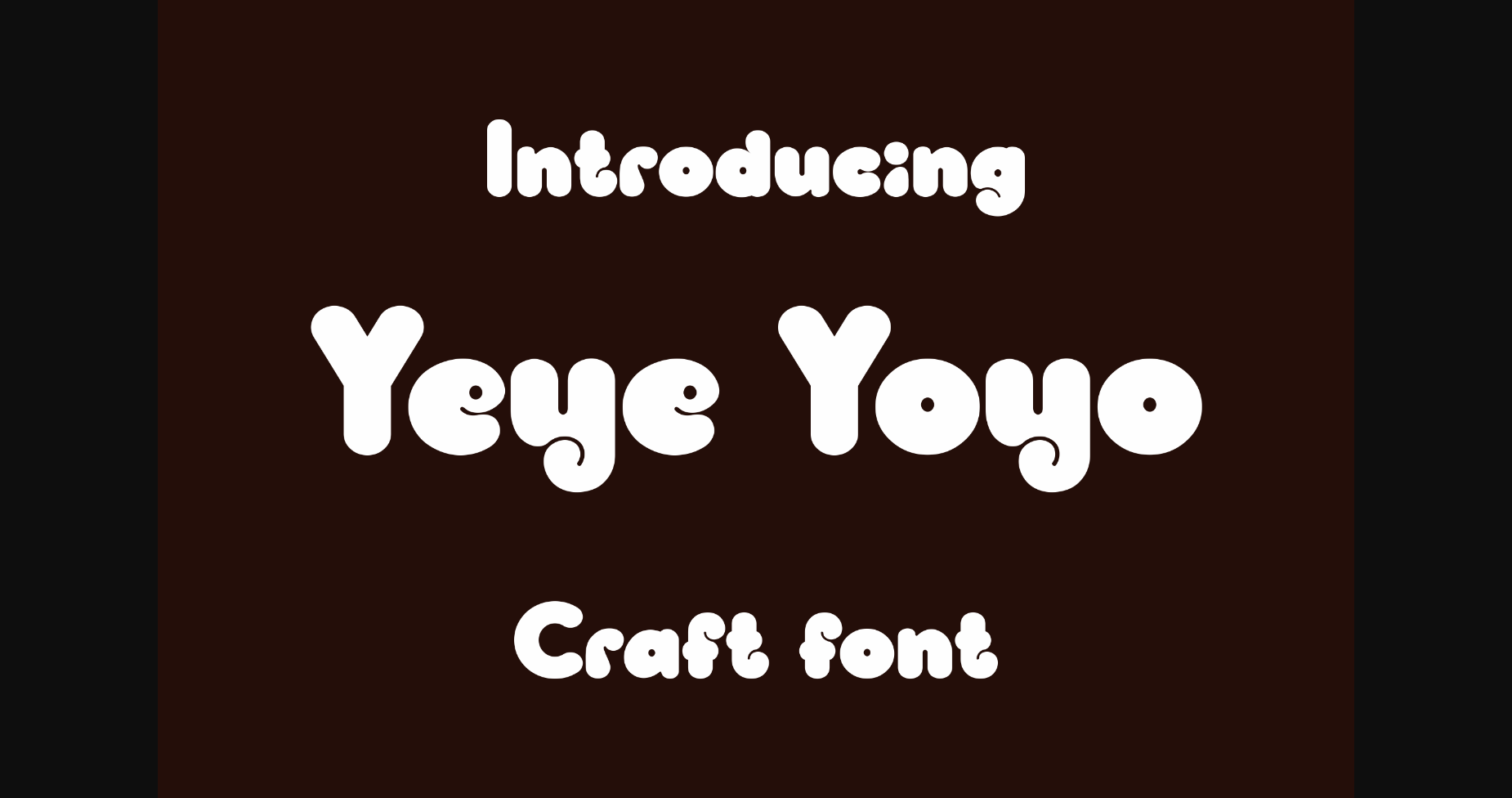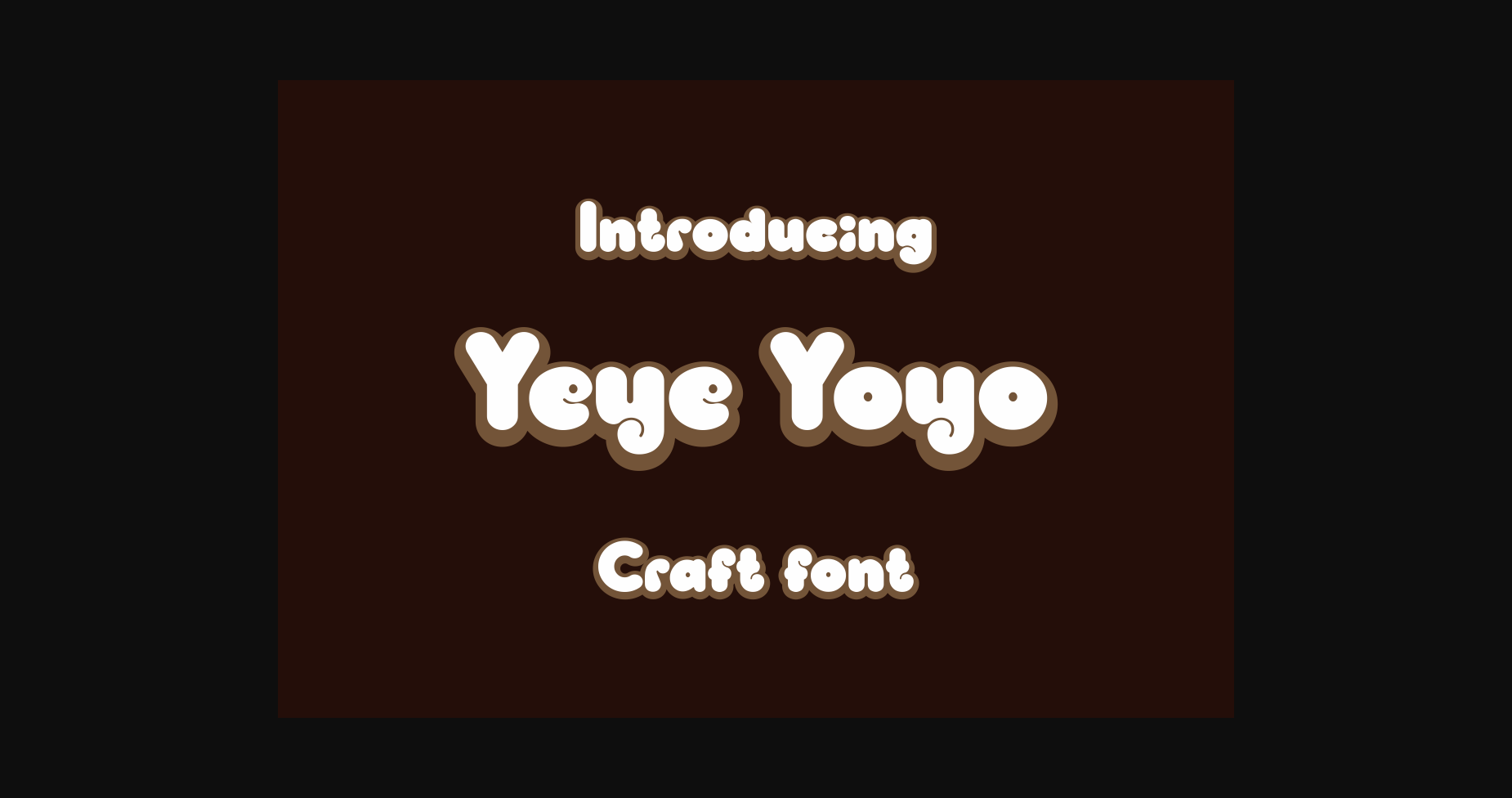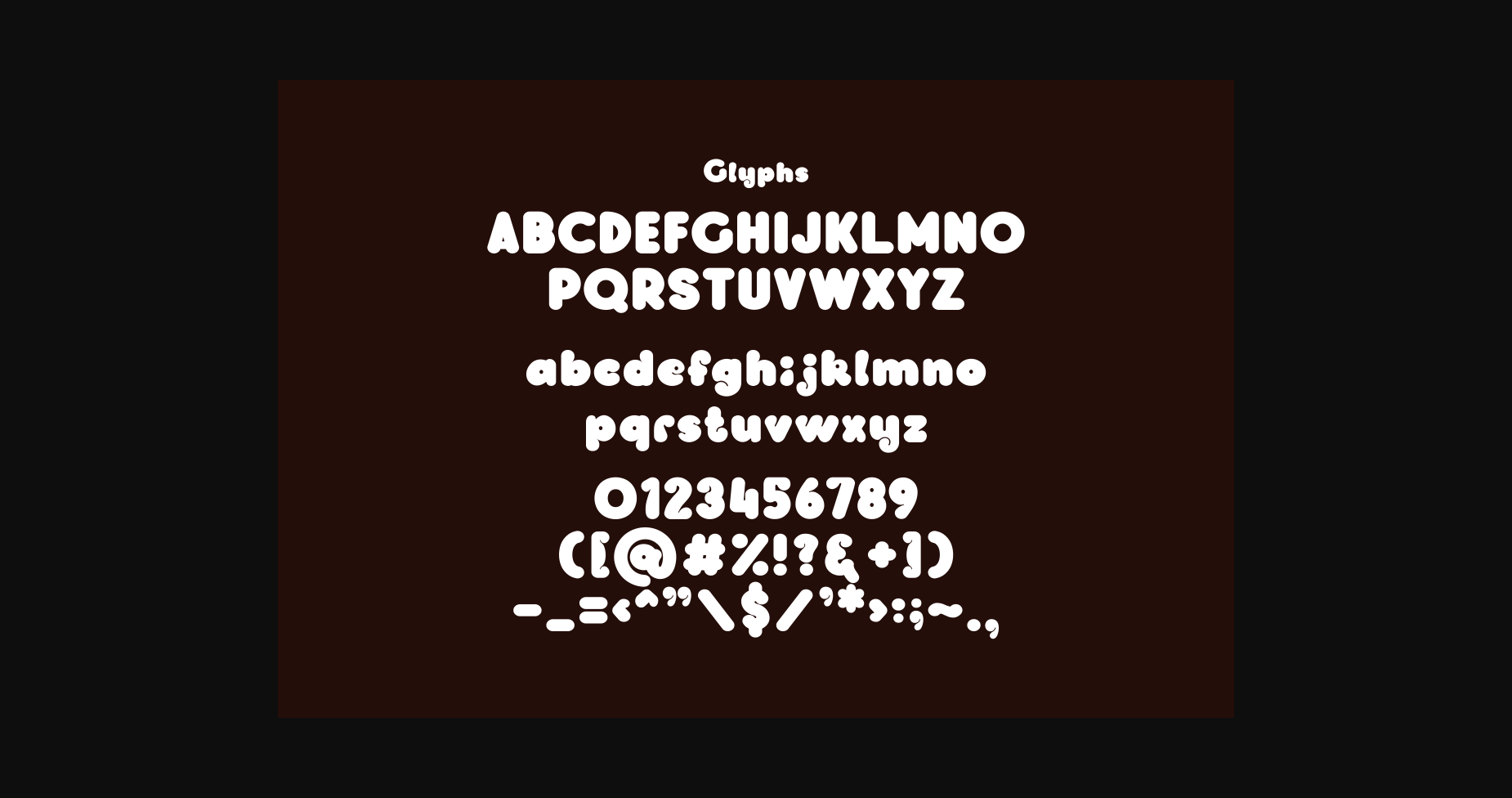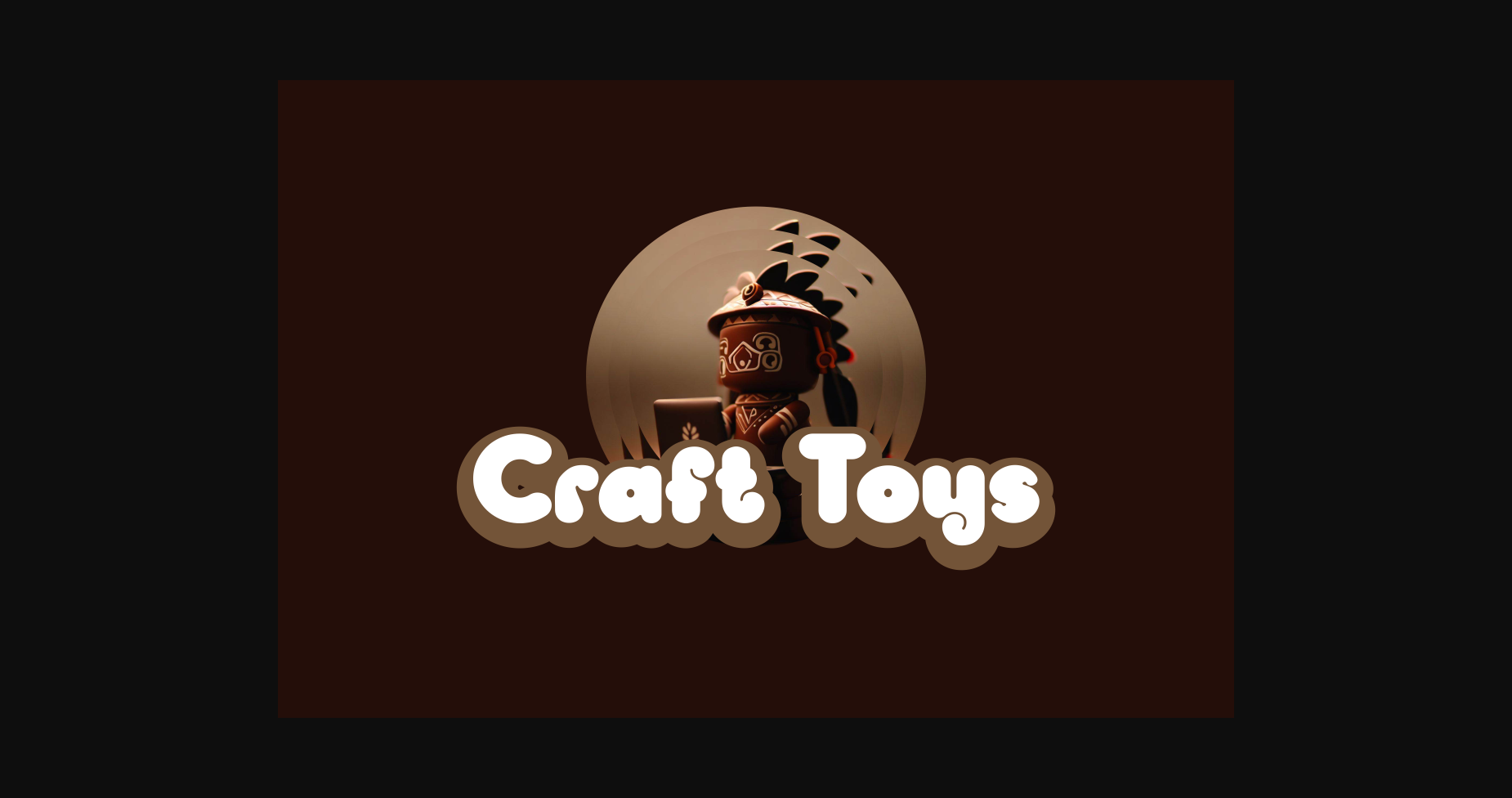
HomeSans Serif FontsYeye Yoyo Font Sans Serif Fonts Yeye Yoyo Font FacebookXPinterestWhatsApp 1 of 8 ... Yeye Yoyo Font Poster 2... Yeye Yoyo Font Poster 3... Yeye Yoyo Font Poster 4... Yeye Yoyo Font Poster 5... Yeye Yoyo Font Poster 6... Yeye Yoyo Font Poster 7... Yeye Yoyo Font Poster 8... About Yeye Yoyo Font This font has a unique fat look specifically made for Creators to promote their handmade products such as Craft toys, Paste Clay, and foods. DOWNLOAD NOW People also explored Nifty Noel Font Smithson Font Chella Font Meriana Font Dear Mother Hell Rider Font Main Street Bungker Font Curve Line Font Heart Shape Font 380 0 TagsYeye Yoyo Font Previous articleArchason FontNext articleRojengos Font LEAVE A REPLY Cancel reply Comment: Please enter your comment! Name:* Please enter your name here Email:* You have entered an incorrect email address! Please enter your email address here Website: Save my name, email, and website in this browser for the next time I comment. Personal Use Free Austins Personal Use Free Read more about this font Huntry Personal Use Free Read more about this font Starting Live Personal Use Free Read more about this font Happy Garden Personal Use Free Read more about this font BLOG Best Fonts for YouTube Videos: Make Your Thumbnails Stand Out Best Fonts for YouTube Videos: Make Your Thumbnails Stand Out Choosing the right font can make a massive difference in how your YouTube videos perform.... Best Fonts for T-Shirt Design – Top 2025 Picks Transform Your Website: Elevate Your Typography with 7 Best Web Font Generators Fonts That Capture the Spirit of New York City